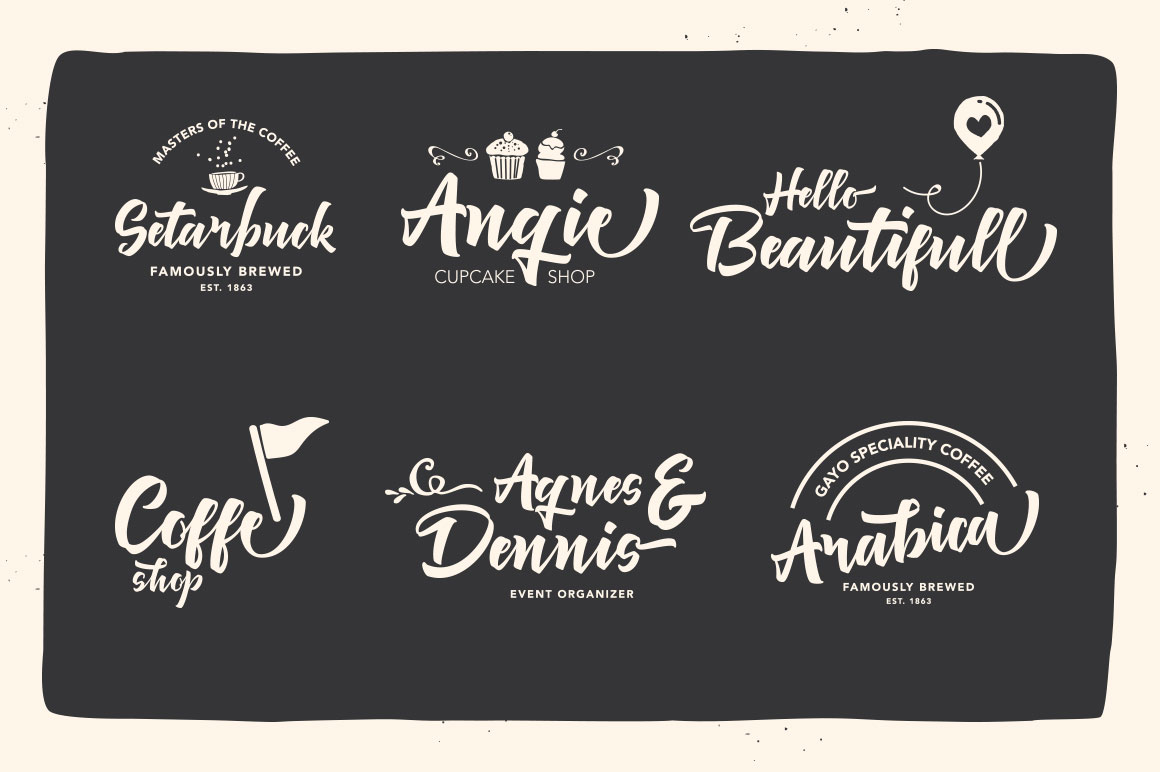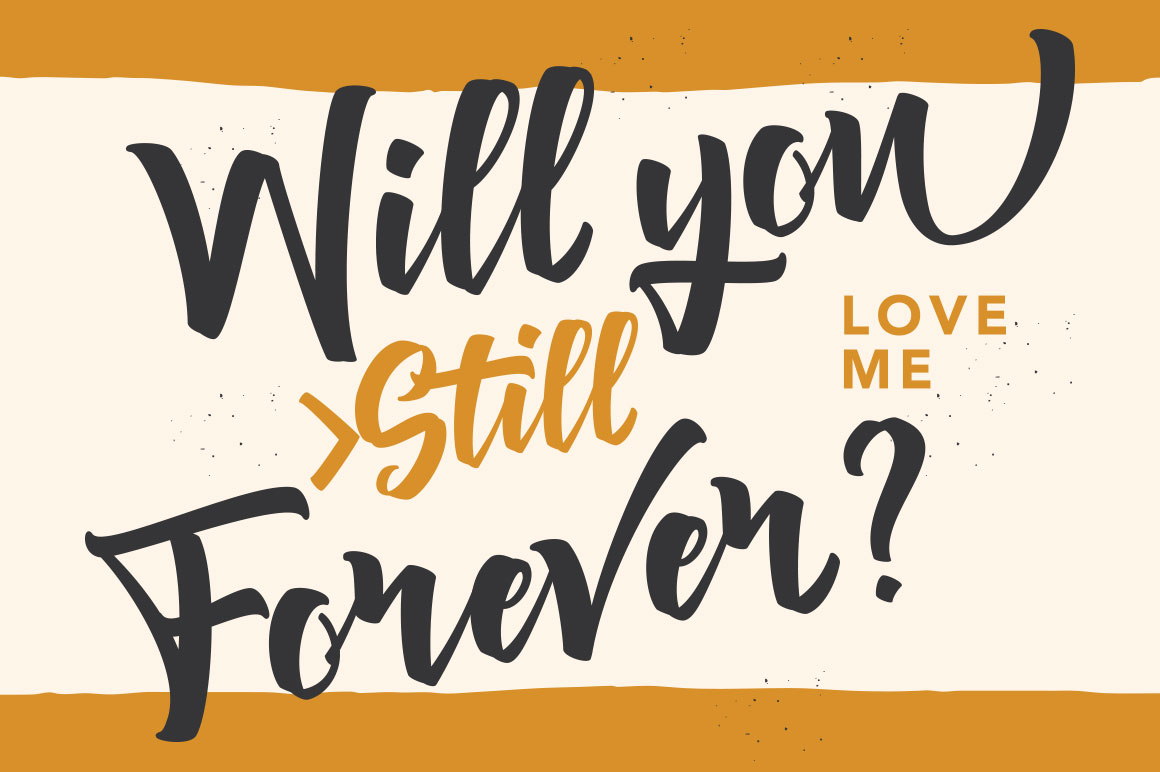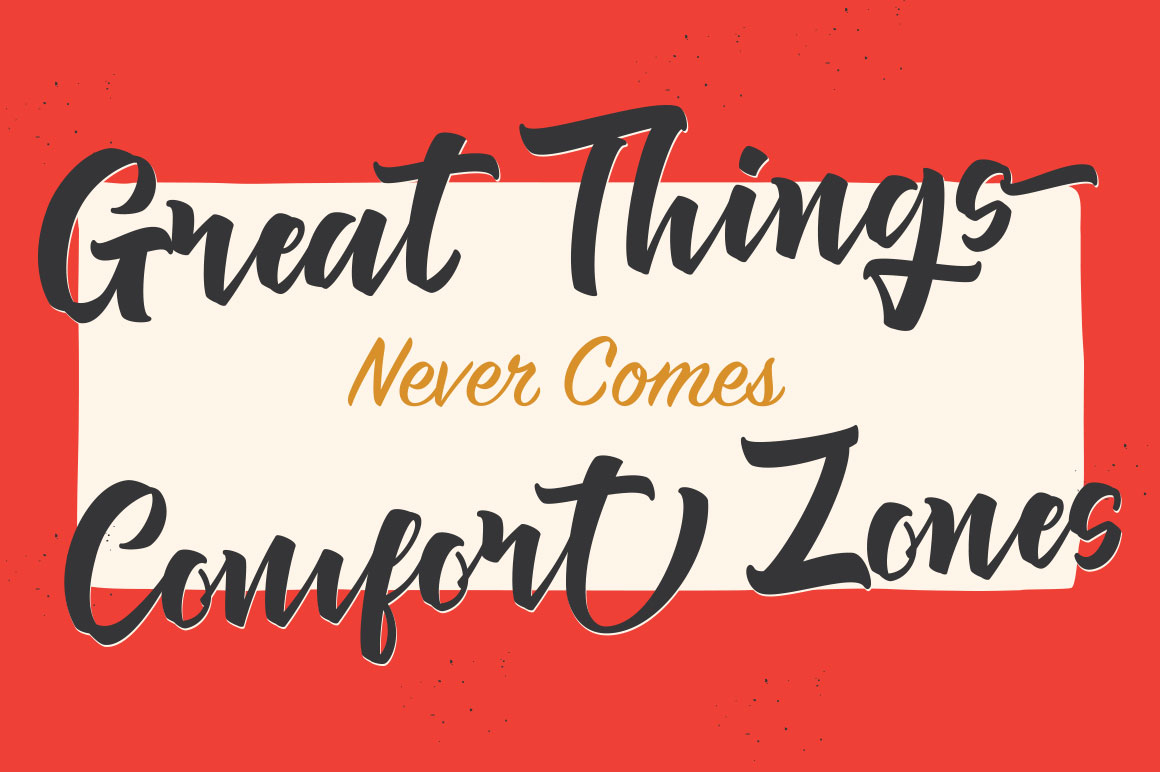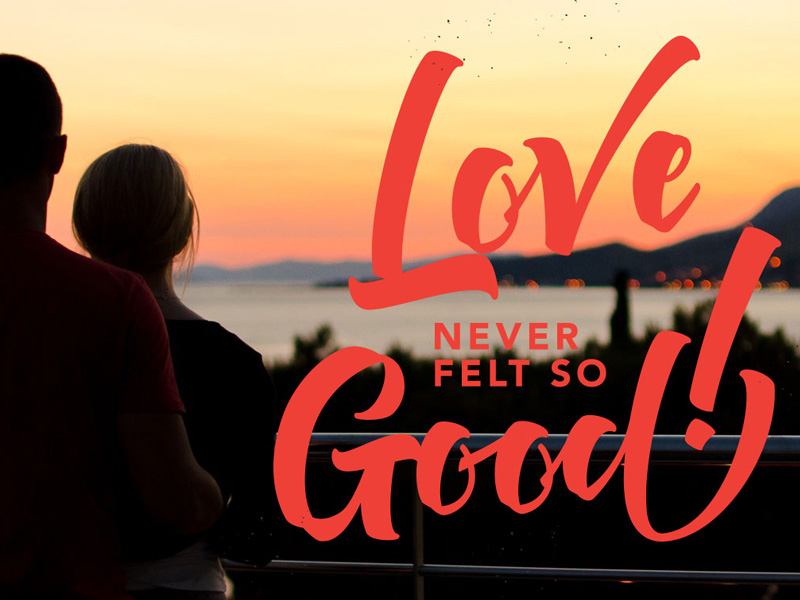
Introducing Devita Font: Elevate Your Designs with Exquisite Brush Lettering
Are you a designer, crafter, or creative looking for a unique and captivating font to elevate your projects? Look no further than Devita, an exquisite brush lettering script font that is sure to make a statement. With its artfully irregular baseline and wide strokes, Devita is a font that effortlessly stands out from the crowd, making it perfect for displays, headings, and more.
The Charm of Devita Font
Devita is a lovely script font that boasts a distinctive, hand-crafted feel. Its irregular baseline and varying stroke widths give it a beautifully organic and artistic appearance, reminiscent of traditional brush lettering. This font is the perfect choice for designers and crafters who want to add a touch of elegance and sophistication to their work.
Key Features of Devita Font
- Exquisite Brush Lettering: Devita features beautiful, hand-crafted brush lettering that adds a touch of artistry to any project.
- Artfully Irregular Baseline: The font’s irregular baseline gives it a unique, organic feel that sets it apart from more traditional fonts.
- Wide Strokes: Devita’s wide strokes make it perfect for displays, headings, and other applications where you want to make a bold statement.
- Perfect for Creative Projects: Whether you’re working on a logo, branding materials, or craft projects, Devita is the perfect choice for adding a touch of elegance and sophistication.
Uses for Devita Font
Devita is a versatile font that can be used in a wide range of creative projects, including:
- Logos and Branding: Use Devita to create a unique and memorable logo that sets your brand apart.
- Signs and Displays: Devita’s wide strokes and irregular baseline make it perfect for eye-catching signs and displays.
- Crafting and Scrapbooking: Add a touch of elegance to your crafting and scrapbooking projects with Devita’s beautiful brush lettering.
- Social Media Graphics: Use Devita to create stunning social media graphics that are sure to grab attention.
Why Choose Devita Font?
With so many fonts to choose from, why should you choose Devita? Here are just a few reasons:
- Unique and Eye-Catching: Devita’s distinctive brush lettering and irregular baseline make it a font that is sure to grab attention.
- Elegant and Sophisticated: Devita adds a touch of elegance and sophistication to any project, making it perfect for designers and crafters who want to create high-end work.
- Versatile: Devita can be used in a wide range of creative projects, from logos and branding to signs and displays.
In conclusion, Devita font is a stunning brush lettering script font that is perfect for designers and crafters who want to add a touch of elegance and sophistication to their work. With its unique and eye-catching design, versatile uses, and ease of use, Devita is a font that is sure to become a staple in your creative toolkit. So why wait? Download Devita font today and start elevating your designs!